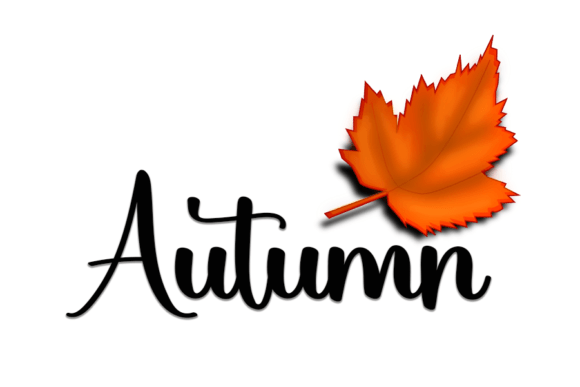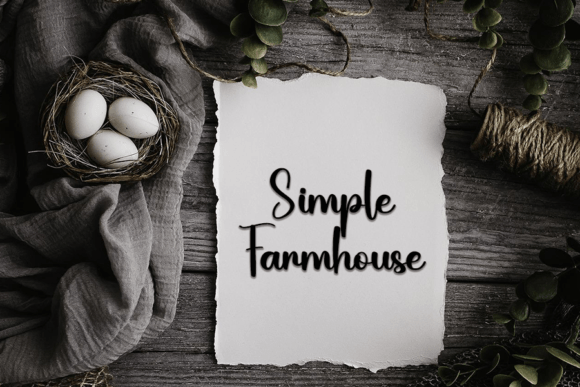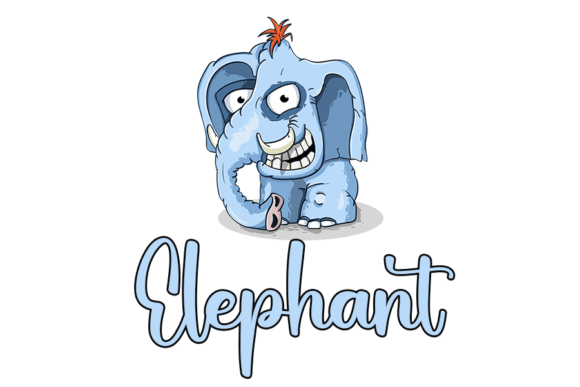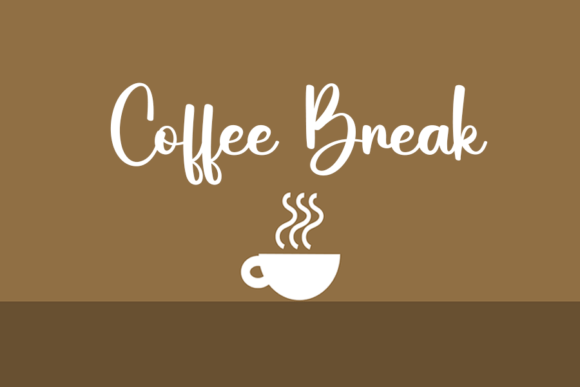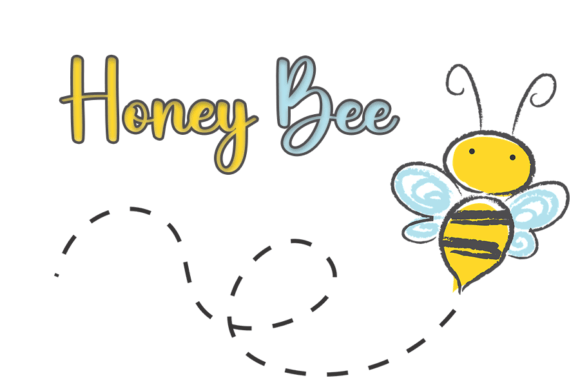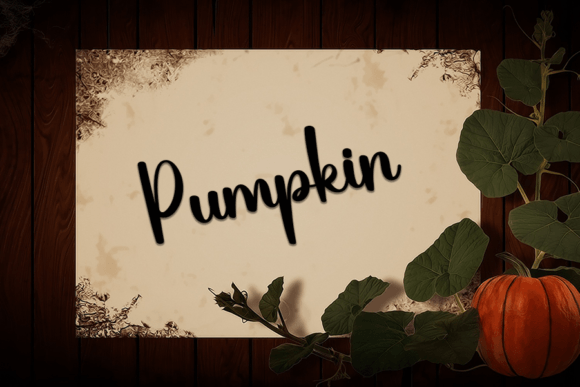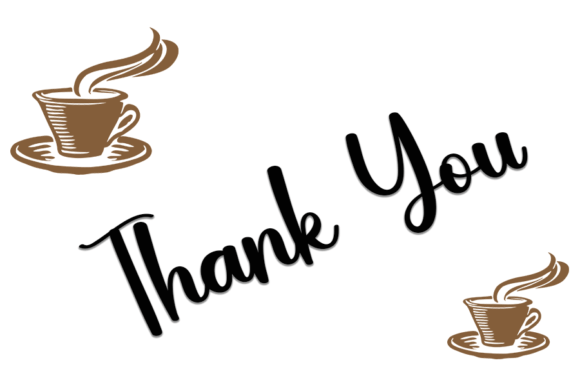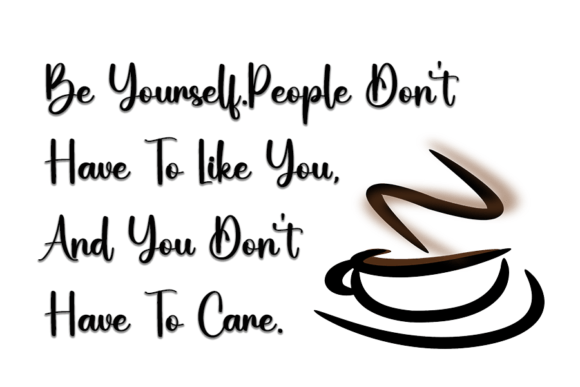
Coffee Break Font
The Coffee Break Font Download is a delicate handwritten typeface crafted with care to bring elegance and uniqueness to any project. With its smooth handwritten curves and stylish character, it creates a refined and creative atmosphere. Whether you are designing invitations, food labels, or branding materials, Coffee Break adds charm and sophistication.
A Delicate Script with Unique Personality
The Coffee Break script font blends gentle handwritten strokes with modern balance. As a result, it feels graceful, timeless, and versatile. Furthermore, it adapts easily to small stationery designs and bold visual layouts, which makes it a flexible option for designers.
Handwritten fonts always bring personality and warmth. The Coffee Break Font is perfect for wedding invitations, thank you notes, birthday cards, and seasonal greetings. Because of its delicate handwritten rhythm, every card feels heartfelt and polished. In addition, it ensures your stationery leaves a lasting impression.
Branding and Logo Design with Coffee Break Font
Typography plays a vital role in shaping a brand’s identity. The Coffee Break handwritten font is excellent for boutique logos, food packaging, and promotional visuals. Its refined handwritten style makes businesses appear professional yet approachable. Therefore, it works particularly well for lifestyle, culinary, and creative industries.
Posters, Titles, and Editorial Layouts
The Coffee Break Font Download also shines in posters, banners, magazines, and book covers. It maintains clarity across all sizes while adding handwritten sophistication. Consequently, it is a dependable choice for designers seeking creativity and readability together.
In today’s fast-paced digital landscape, fonts must be both stylish and adaptable. The Coffee Break typeface integrates seamlessly into Instagram graphics, Pinterest boards, YouTube thumbnails, and blogs. Because of its delicate handwritten strokes, it ensures digital projects look modern and attractive.
Why Designers Choose Coffee Break Typeface
Designers appreciate fonts that combine elegance with usability. The Coffee Break handwritten script keeps its delicate personality while staying legible. This makes it suitable for professionals and hobbyists alike. Moreover, its timeless charm ensures it remains relevant across future creative projects.
Add Elegance to Your Projects Today